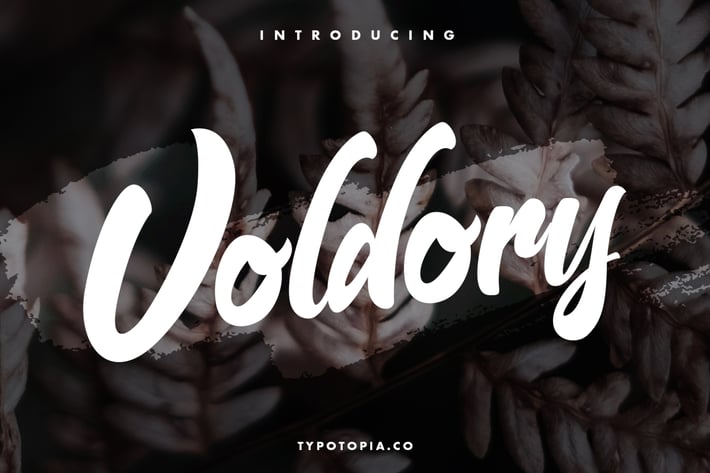
Voldory Modern Script Font
Introducing, Voldory a Stylish Modern Calligraphy Font with Casual Style!!
Voldory is a Stylish Modern Calligraphy Font with Casual Style for your Design that is absolutely great for your next creative project such as logos, printed quotes, invitations, cards, product packaging, headers, Logotype, Letterhead, Poster, Apparel Design, Label, and etc.
This Versatile Font includes also supports Multilingual Characters. Making this Font a Swiss Army knife in your Font Library. It's extremely fun to use as each word can be transformed to your liking.
What are the main Features on This Fonts :
- Uppercase & Lowercase letters